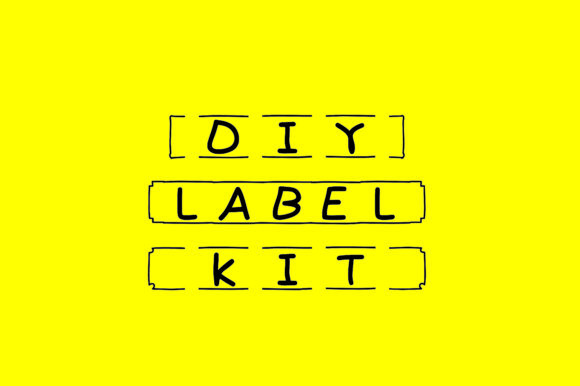
Prepare to be captivated by our exquisite Label Kit Font collection, a treasure trove of captivating dingbats designed to elevate your book design to new heights.
Indulge in the beauty of five distinct frame styles, each a canvas for your creative expression. Whether you seek a touch of elegance, a dash of whimsy, or a burst of boldness, our Label Kit Fonts will ignite your imagination.
Effortlessly elevate your book's aesthetic with these versatile fonts, perfect for crafting eye-catching covers, captivating chapter headings, and thought-provoking quotes. Their meticulous craftsmanship ensures seamless integration into your designs, enhancing the visual impact of your masterpiece.
Unleash your inner designer and create labels that exude professionalism and charm. With Label Kit Fonts, you can effortlessly transform ordinary text into extraordinary statements. Their versatility extends to a myriad of applications, from product packaging to social media posts, leaving an unforgettable mark on your audience.
But don't just take our word for it. Immerse yourself in the captivating world of Label Kit Fonts and experience the transformative power they bring to your designs. Download now and unlock a world of creative possibilities.
**Why Choose Label Kit Fonts?**
* Embark on a journey of effortless organization with our meticulously curated frame styles.
* Express your unique voice through the power of written words, framed in the elegance of Label Kit Fonts.
* Leave a lasting impression with labels that exude professionalism and style, elevating your designs to new heights.
* Unleash your creativity and explore a world of endless possibilities, where Label Kit Fonts become the canvas for your imagination.
* Experience the joy of creating labels that truly reflect your brand's essence, effortlessly capturing the attention of your audience.